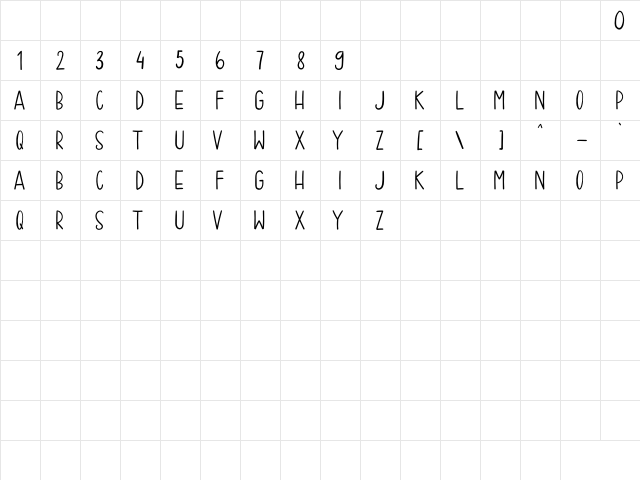
Summer Like Sans Regular
Design Context for Summer Like Sans Typeface
Summer Like Sans is a composed and adaptable typeface that performs quietly and consistently across a wide range of design contexts.
Pro Tip: Use Summer Like Sans in both headline and body roles to test its range before committing to a single application.